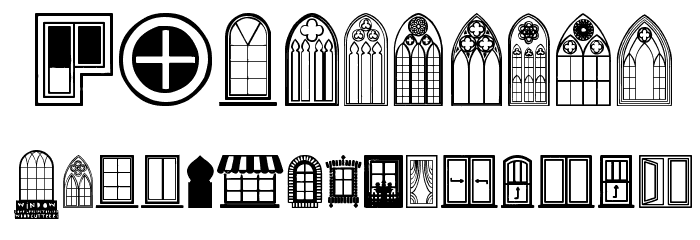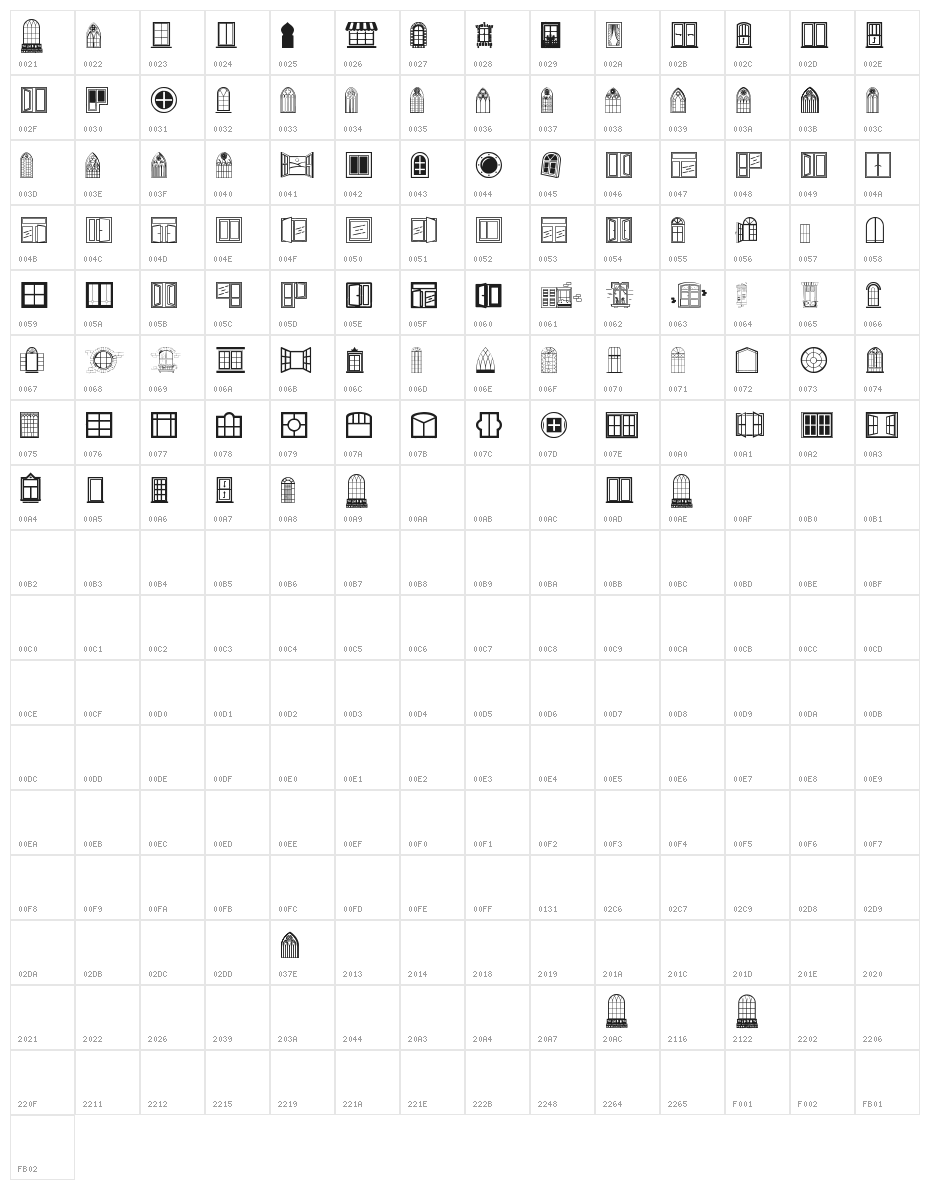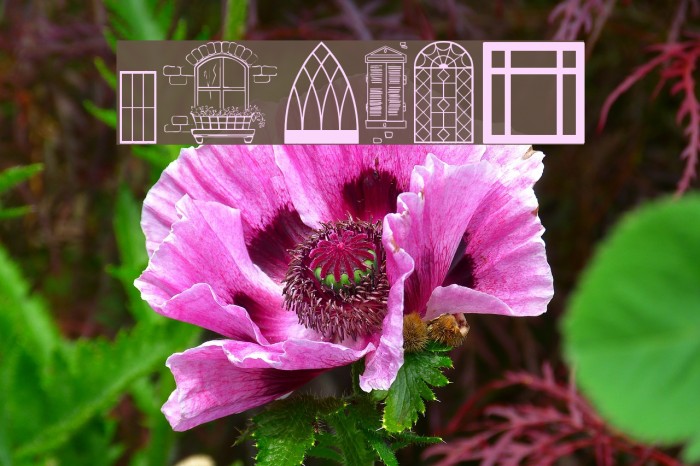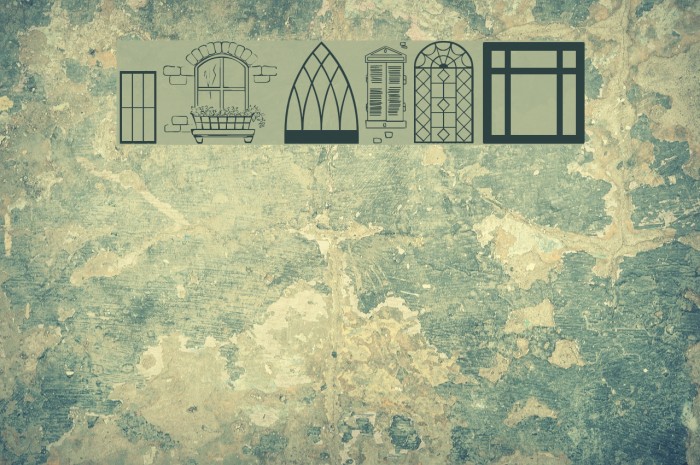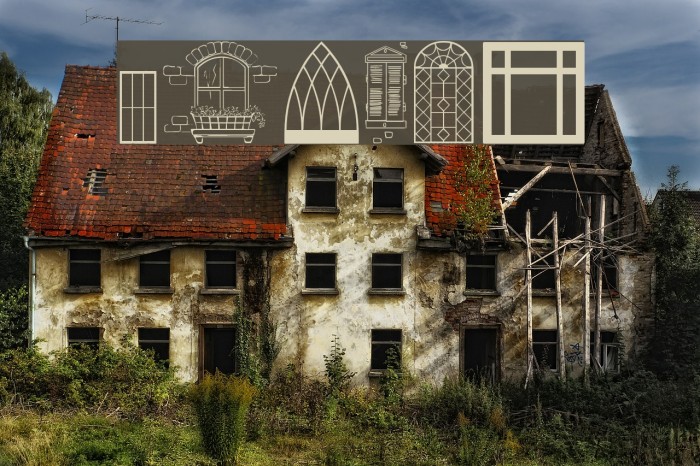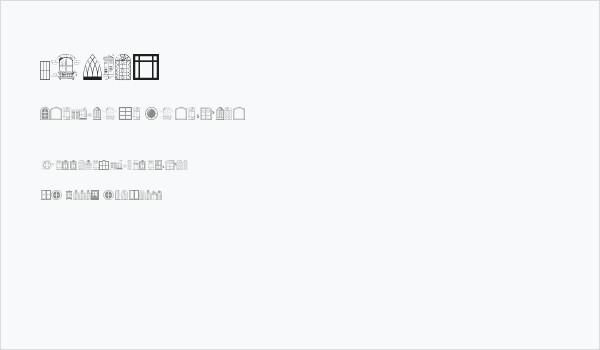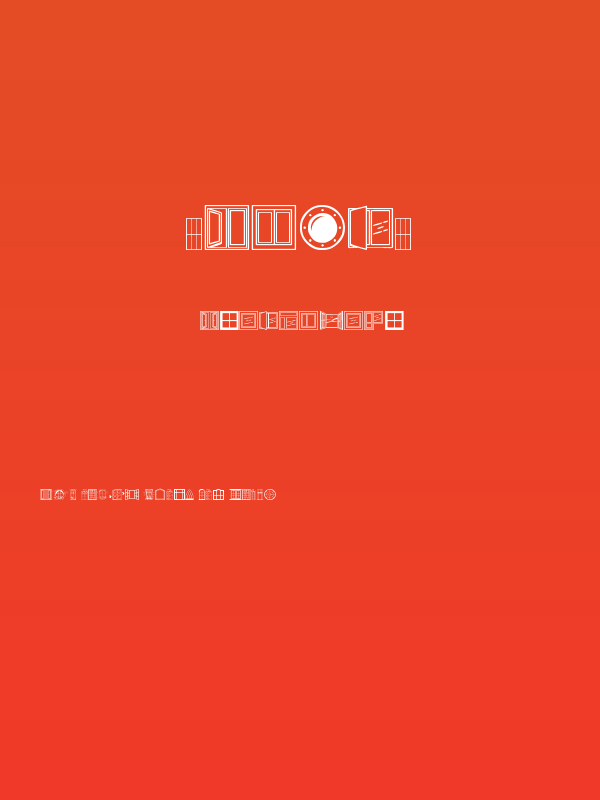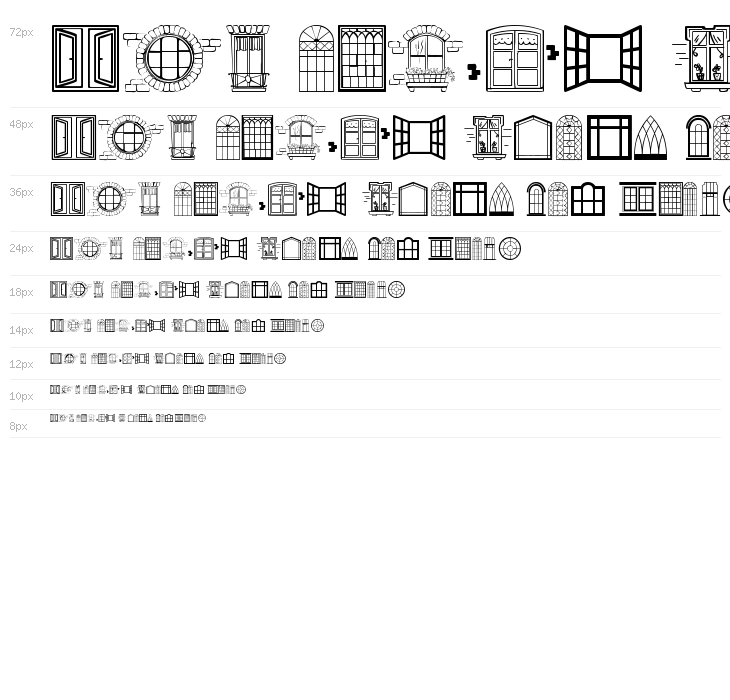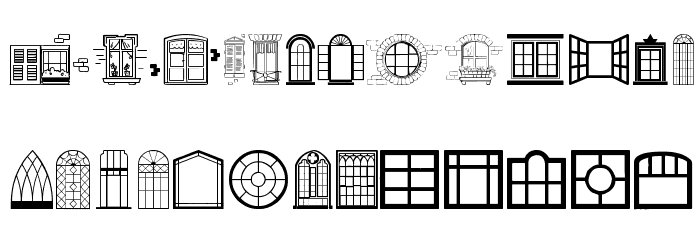
Window Font
Window Description
A decorative display font composed of various window illustrations, each character represented by a unique window design with diverse shapes, frames, and architectural styles. The glyphs are detailed, outlined, and highly stylized, emphasizing visual variety over typographic uniformity.
| Overall Style | Decorative, Playful, Thematic |
| Use Case | Headlines, Logos, Themed graphics, Posters |
| Proposed Projects | Posters, creative branding, architectural presentations, childrenΓ’β¬β’s books, themed event invitations. |